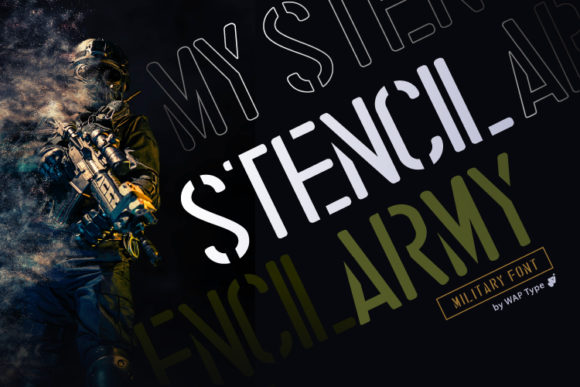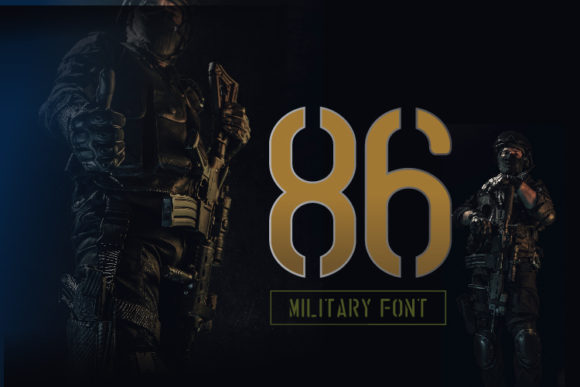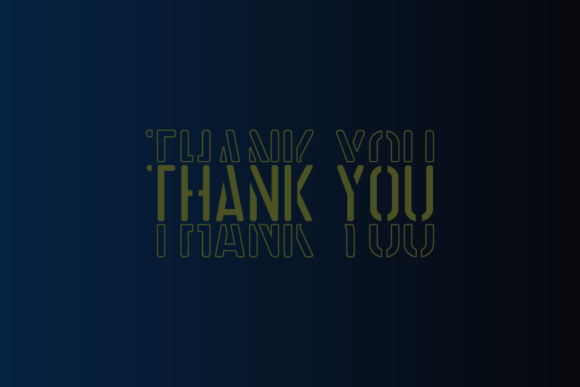
Stencil Army Font
Stencil Army is a unique display font with a military style. This font was created for a series of veterans-related posters but you can also use it in any other project you can think of.